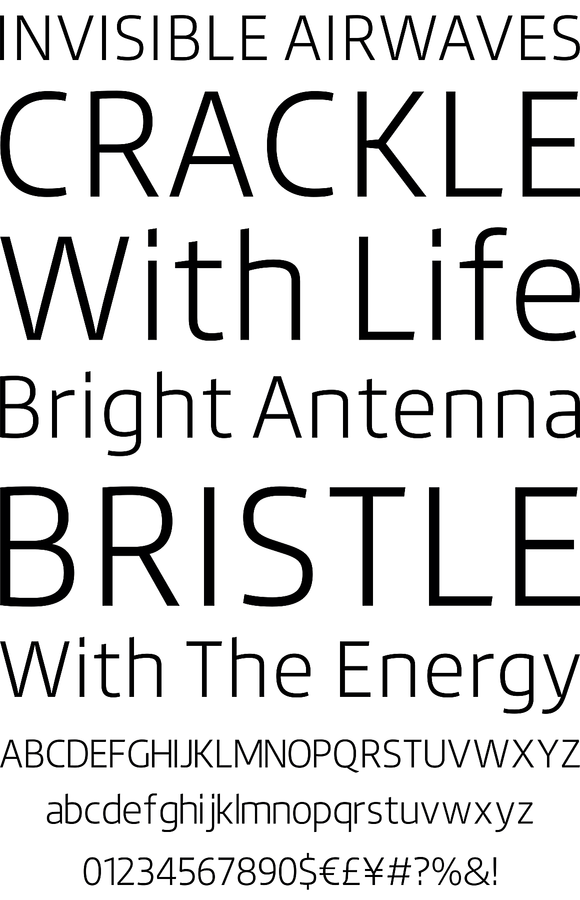
Foundry: Indian Type Foundry (ITF)
Engrez is a thoroughly modern sans with a softened, simplified lowercase and sturdy, serious caps. It’s highly recommended for corporate branding and editorial exercises.